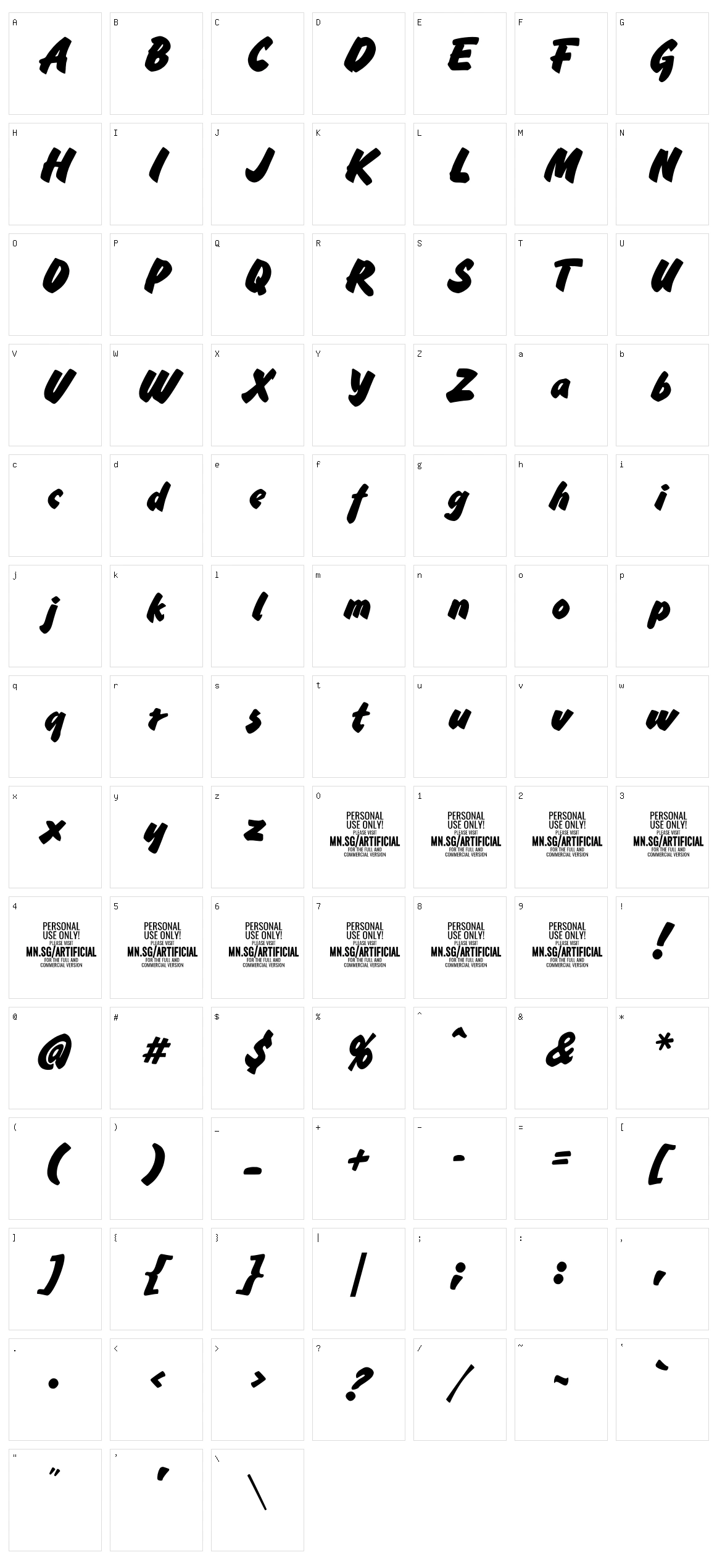
Artificial Intelligence is a computer generated typeface, in a brush handwriting style.
As the world's first public and commercially available AI typeface, Artificial Intelligence celebrates the interaction between humanity and technology, in an attempt to blur the lines between hard data and interpretation.
Based on 400 of Mans Greback's typefaces, this machine learning is bold and expressive, with a touch of retro while keeping it hip.
It is provided in an all-caps uppercase style, Artificial Intelligence Caps, as well as the Regular style with lowercase lettering.
The font is built with advanced OpenType functionality and has a guaranteed top-notch quality, containing stylistic and contextual alternates, ligatures and more features; all to give you full control and customizability.
It contains all characters and symbols you'll ever need, including all punctuation and numbers.